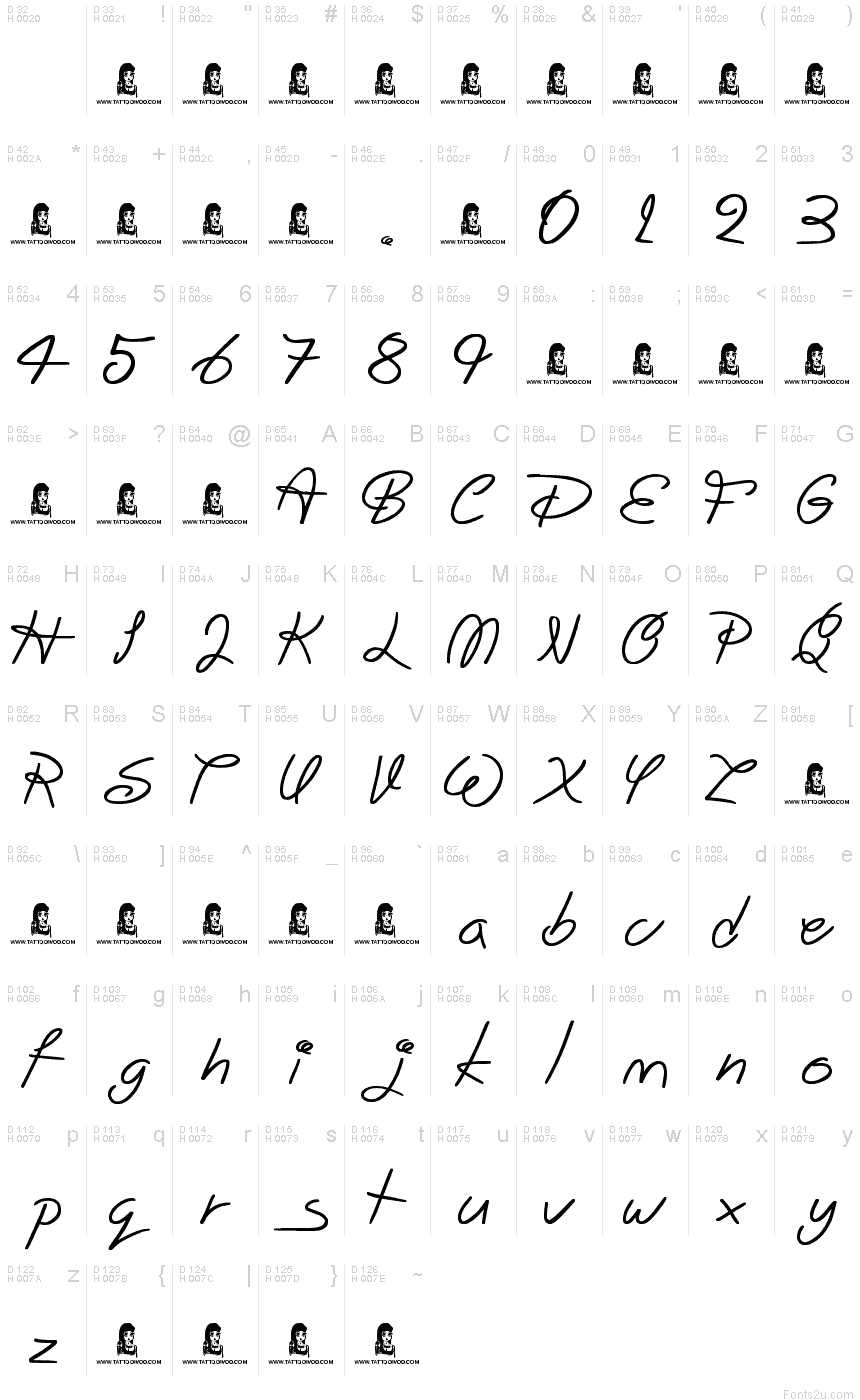
Big Winks by TattooWoo.com is a free handwritten font with wildly stretched loops and a quick, marker-like stroke. Its tangled letters feel deliberately unruly.
Merchandise gives this lettering a natural home, especially on streetwear graphics, band shirts, and skate artwork where the sweeping lines can become part of the illustration. It also suits tattoo studio branding and music posters, but its most convincing role is in designs that want the restless look of an oversized personal scrawl.
Big Winks